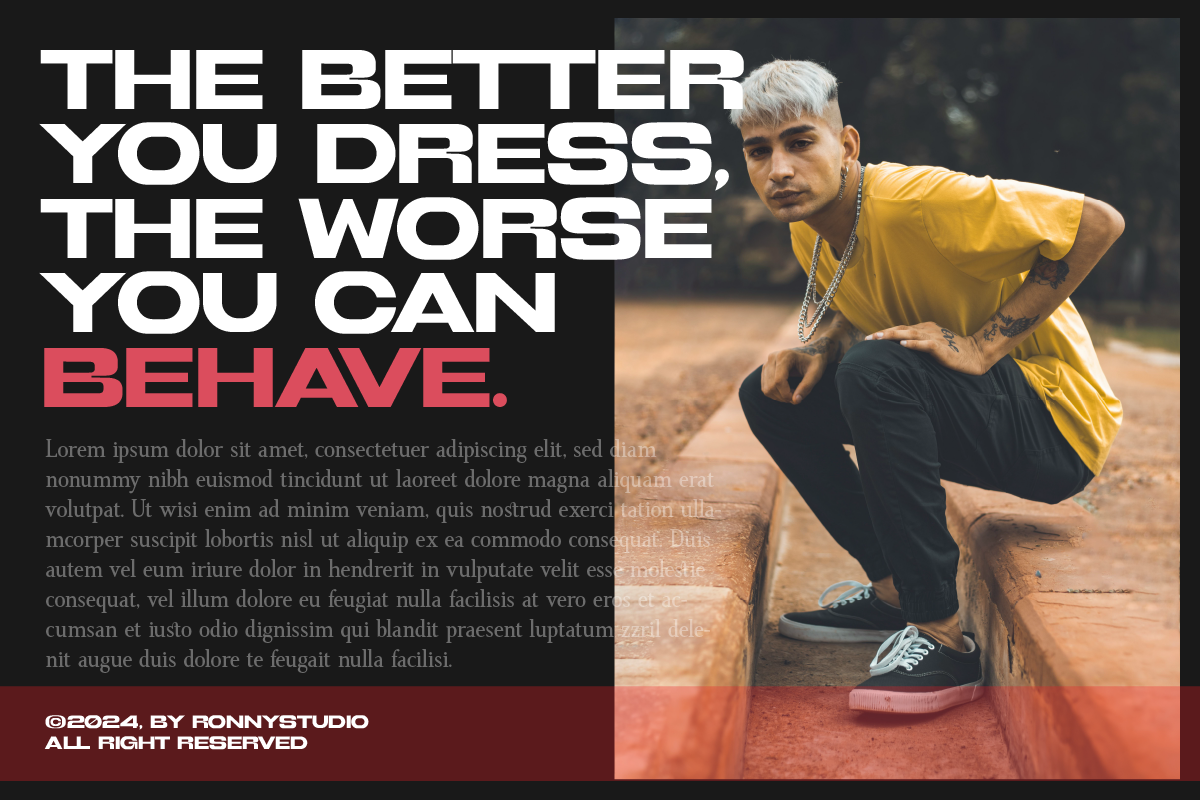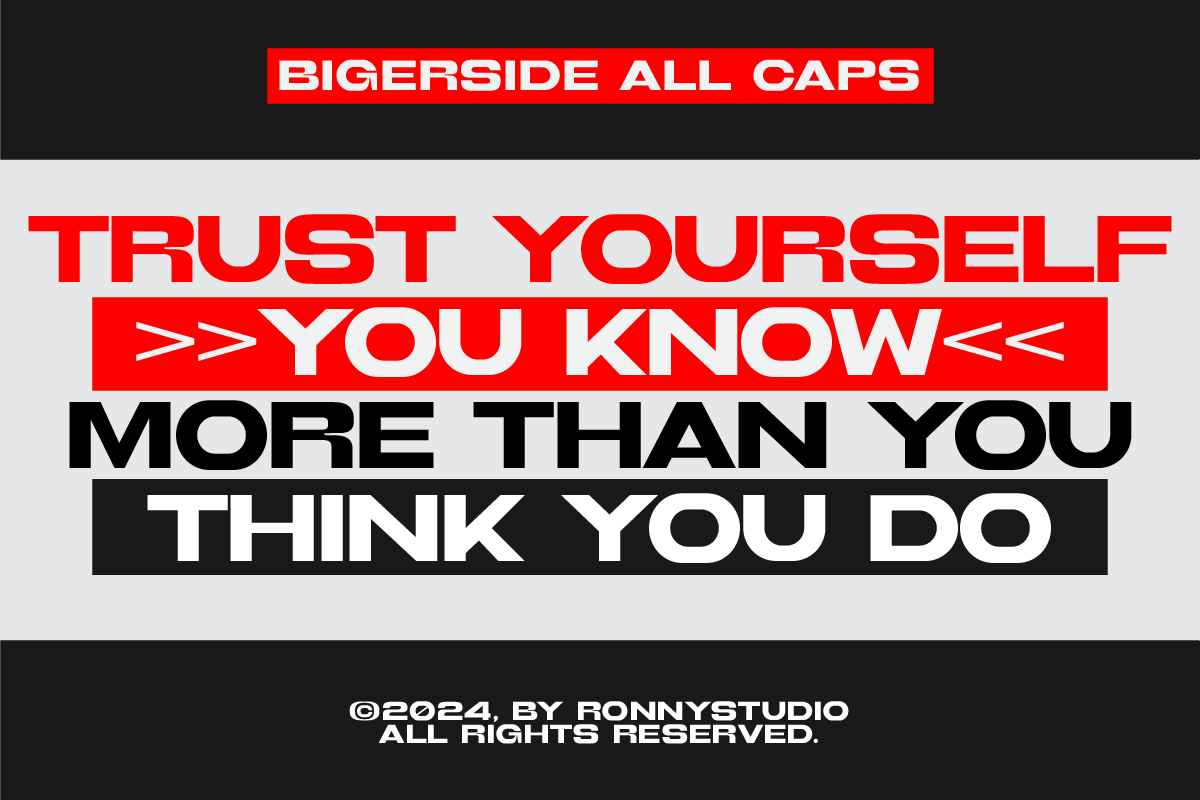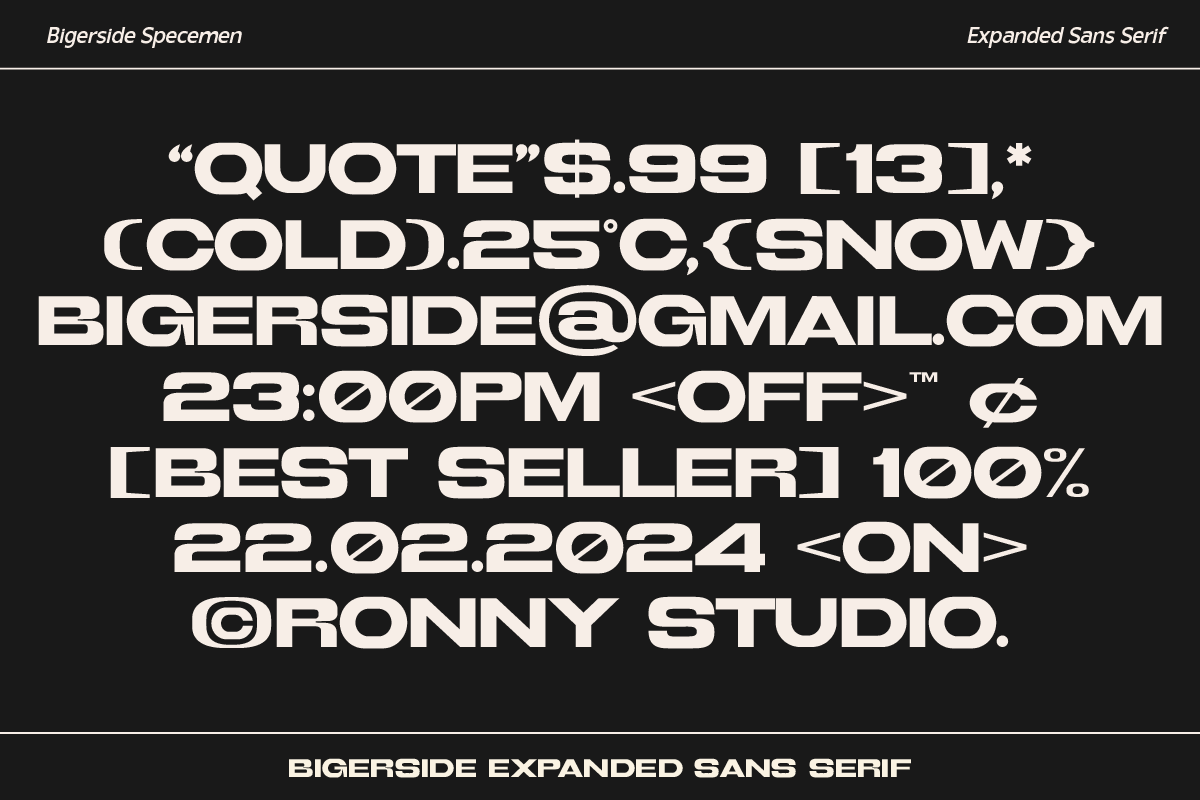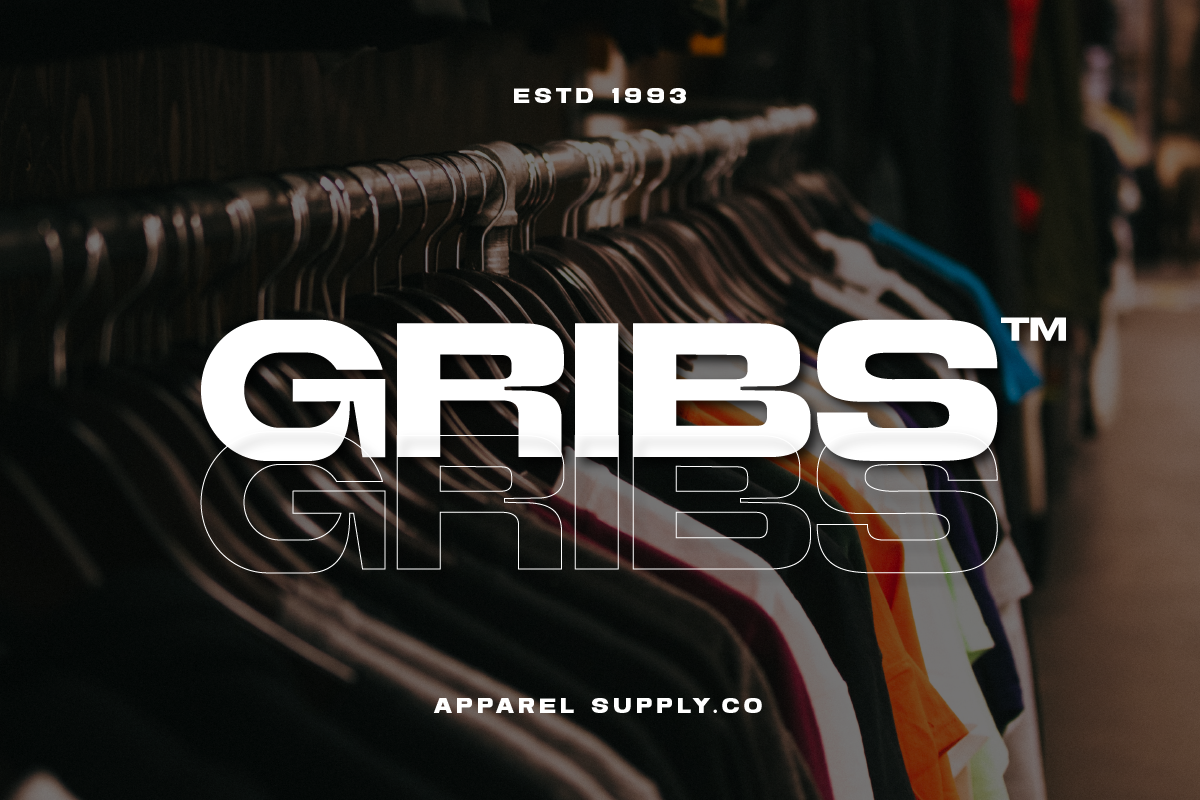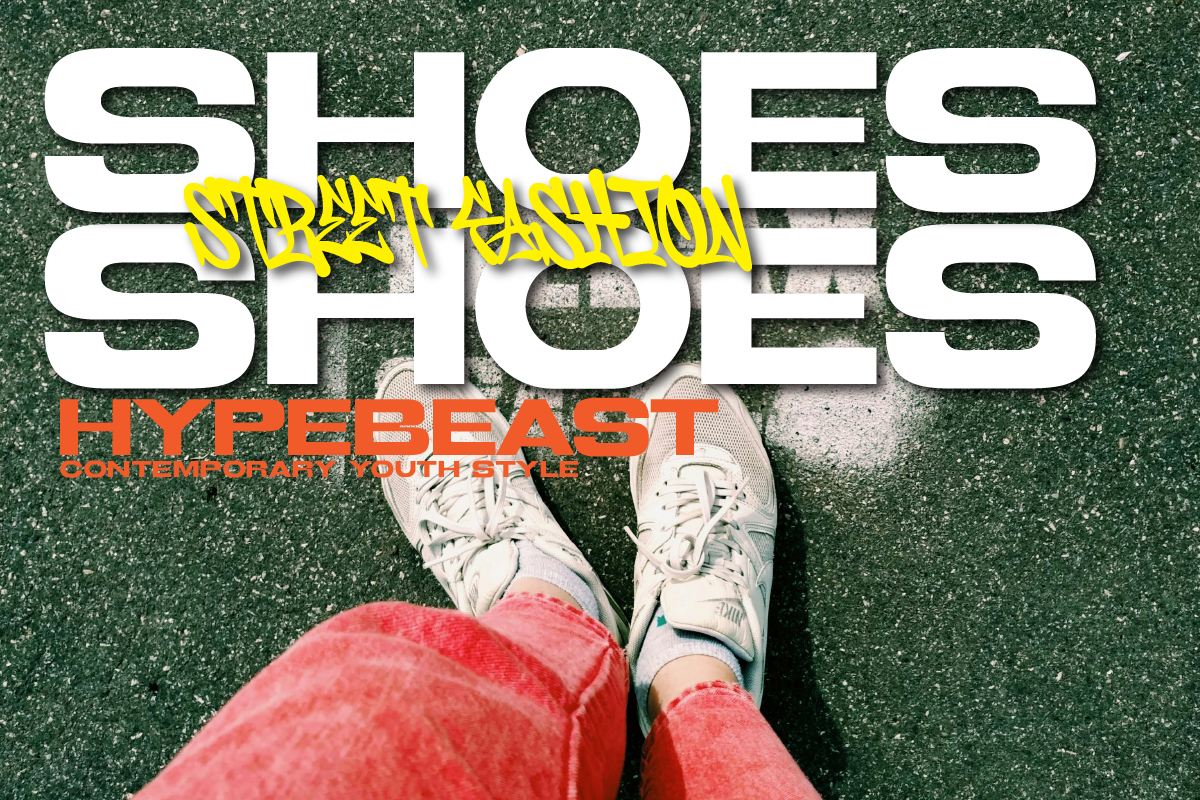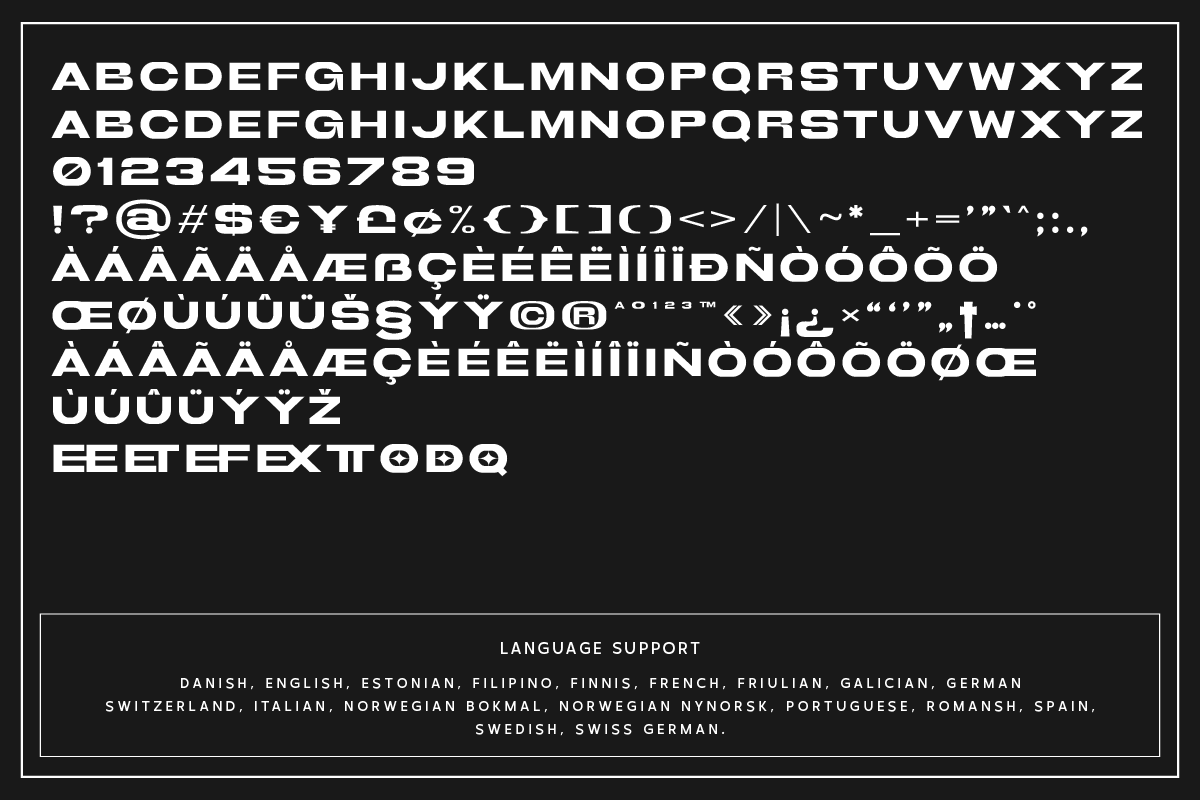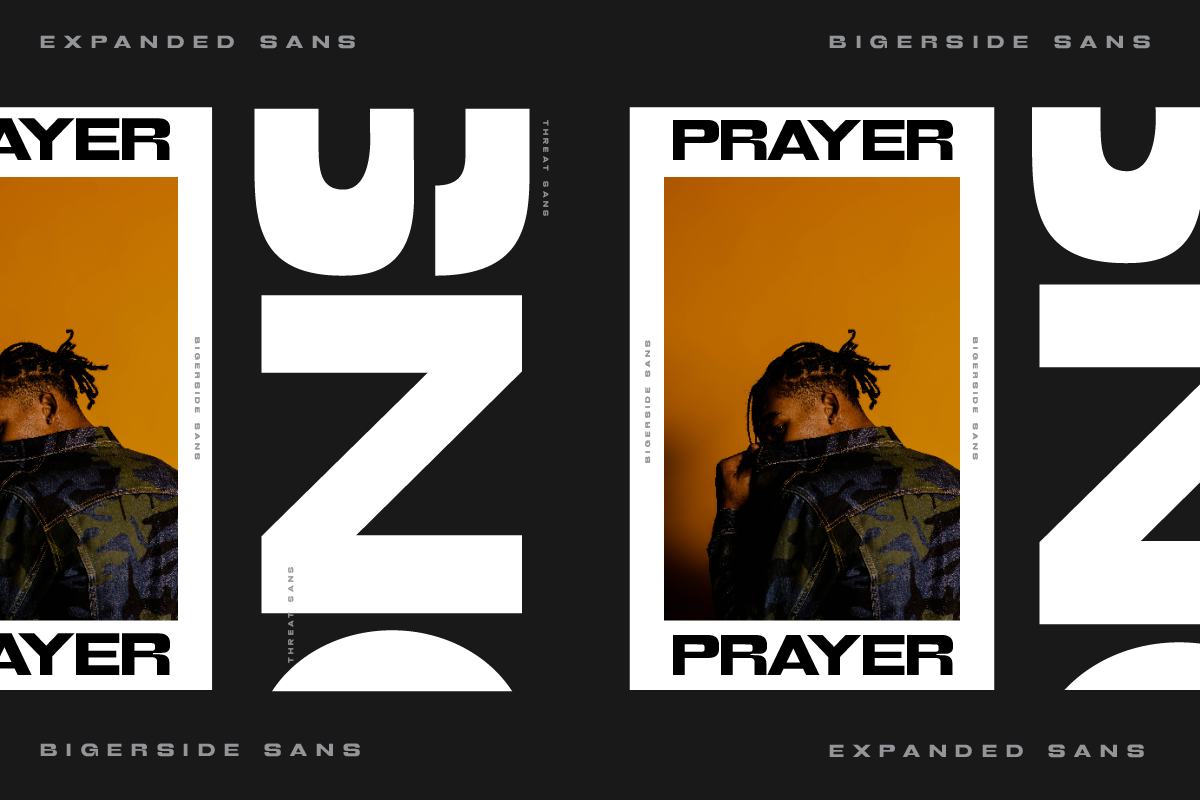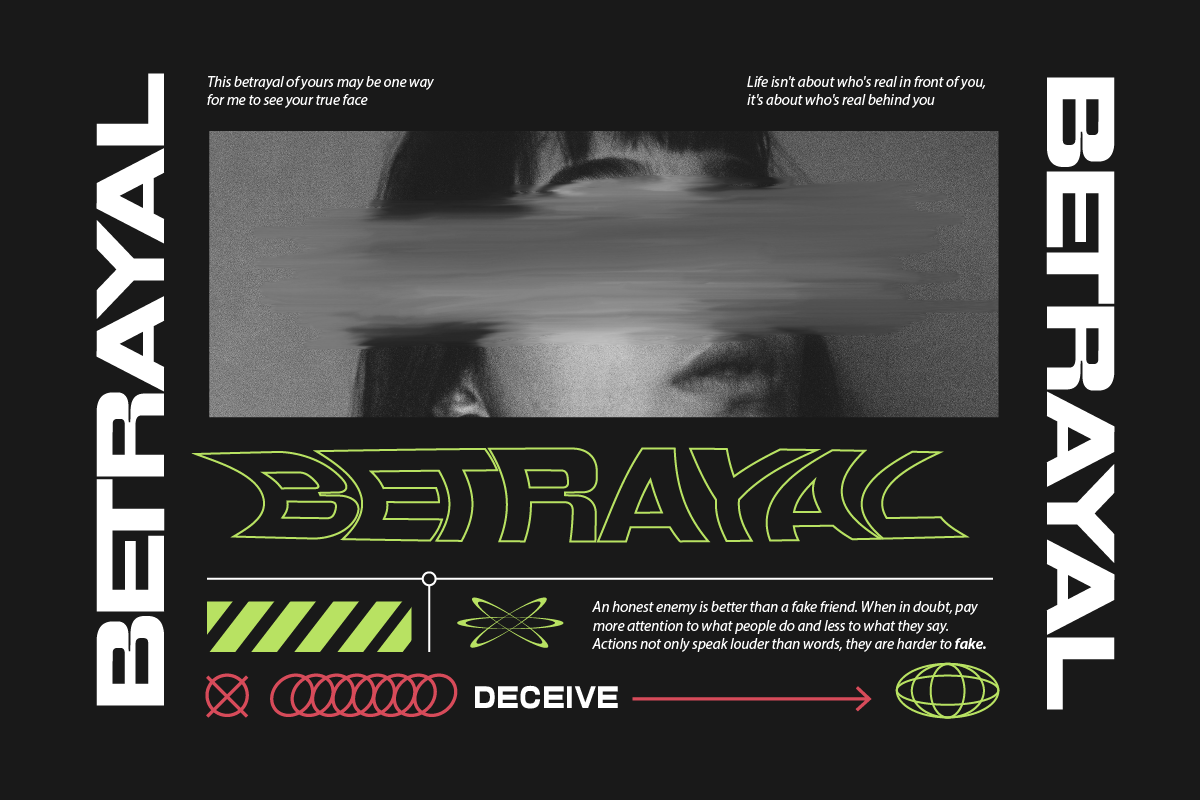
Bigerside Modern Expanded Sans Serif
Bigerside – A Bold & Expanded Sans Serif for Modern Design Projects 💡⚡ Bigerside is a strong, wide, and futuristic sans-serif font designed for impactful branding, high-tech aesthetics, and modern designs. With its bold structure and clean lines, it’s perfect for logos, posters, sports branding, gaming titles, and futuristic projects.
🔠 Key Features:
✅ Wide & Bold Structure – Creates a strong visual impact for headlines and branding.
✅ All Caps Font with Alternates & Ligatures – Perfect for powerful typography compositions.
✅ Versatile Use – Ideal for technology, sports branding, fashion, posters, and digital media.
✅ Multilingual Support – Covers a wide range of languages for global projects.